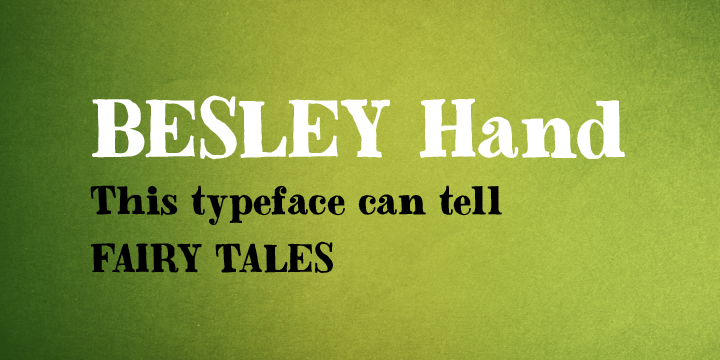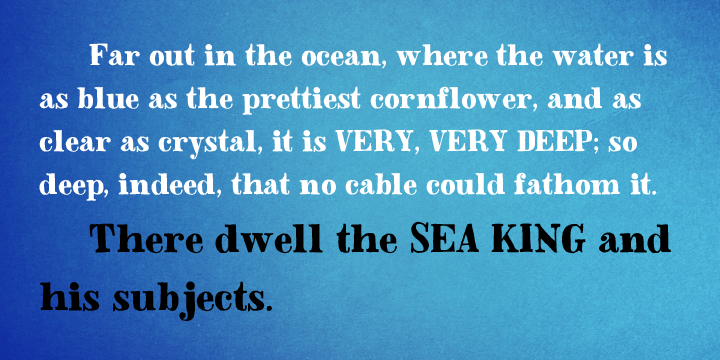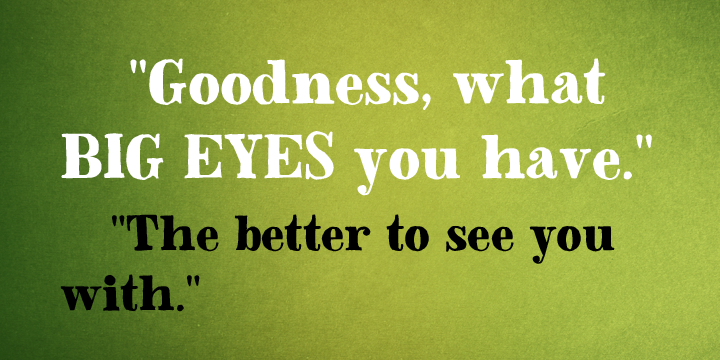
Besley Hand (1 font)
From Juraj Chrastina Type
Besley Hand is a slab serif that goes well with the sans serif Trango.
About Juraj Chrastina Type
His work began in web design, and now covers print design, corporate and product identity design, other media, some photography, and type design. “Designing type is a very pure form of design for me, and the more involved I get in typography the more inspired I get. I´d love to work more with type design in the future, which means changing the ratio of my creative activities.”